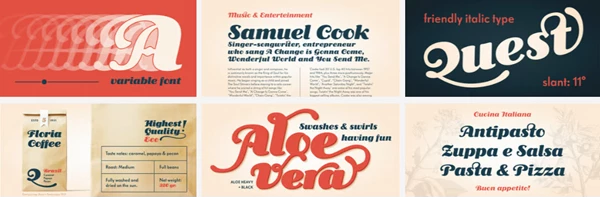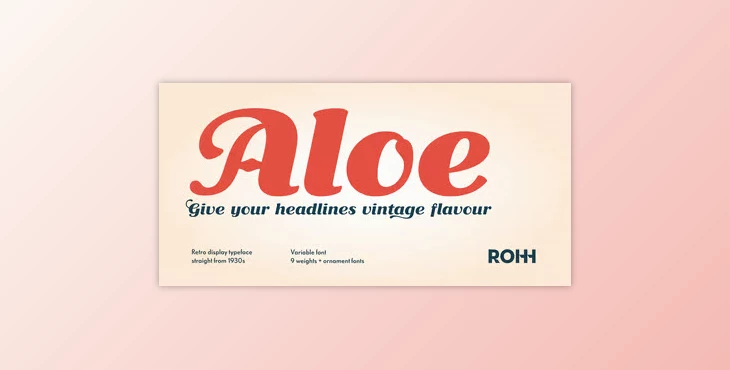
My Fonts - Aloe - 1930's Display Font Family:
Aloe is like taking your imagination back to the 1930s with a touch of nostalgia and lots of vintage appeal. This warm, authentic, and whimsical typeface is based on the decorative headlines of Polish newspapers from the 1930s, giving it an old-timey feel that anyone who appreciates the beauty of yesteryear will love to use.
The Aloe font family comes in a wide variety of weights (nine distinct weights and a variable font), with tons of fun swashes and ornaments. This is the go-to typeface for eye-catching menu cards, romantic wedding invitations, or even that nostalgic branding project you've been dying to get your hands on. Featuring 900+ flowing glyphs and extended Latin language support, Aloe is everything you could ever want in a magical font!